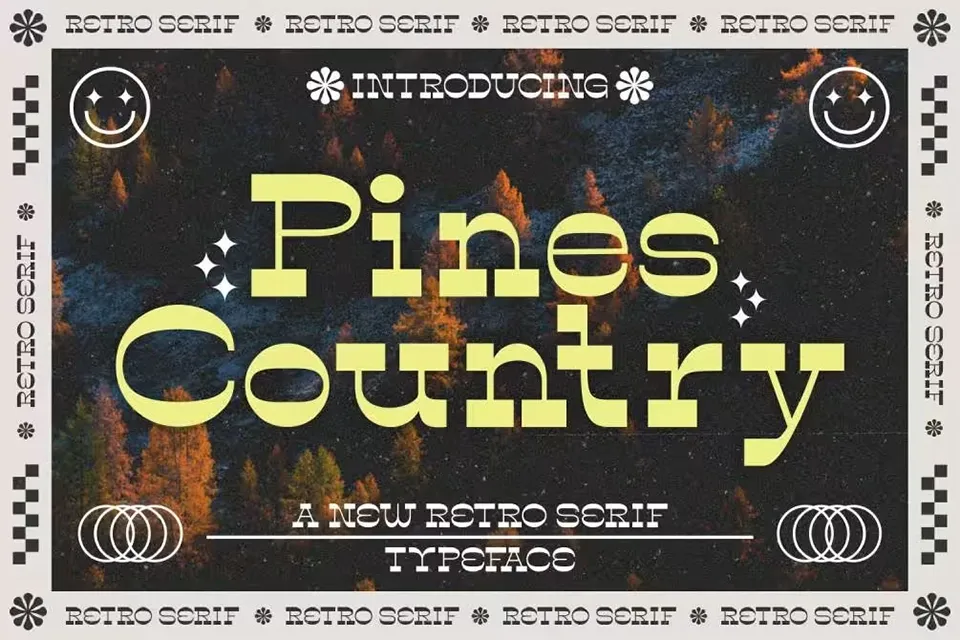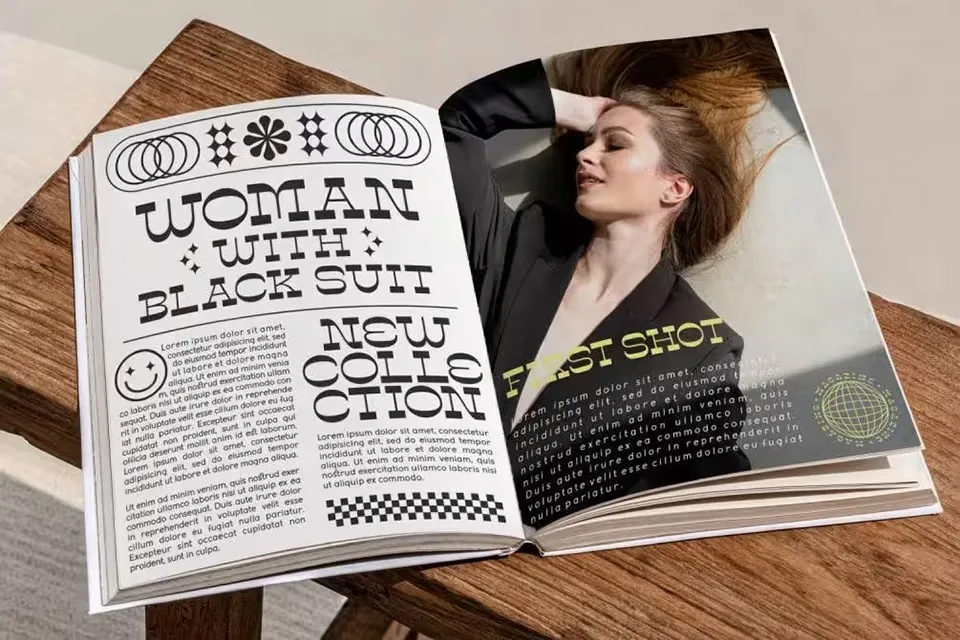
Pines Country Font
Pines Country Font, created by GraphicSauce, is a bold and distinctive retro serif typeface. It captures a vintage or country aesthetic with its substantial, blocky letterforms. Described as a “new retro serif,” this font is ideal for projects seeking a classic, nostalgic, or rustic feel. It works well for display purposes like posters, logotypes, branding, or themed designs requiring a touch of old-school charm. Pines Country is available free for personal use only; a commercial license must be obtained for business applications.